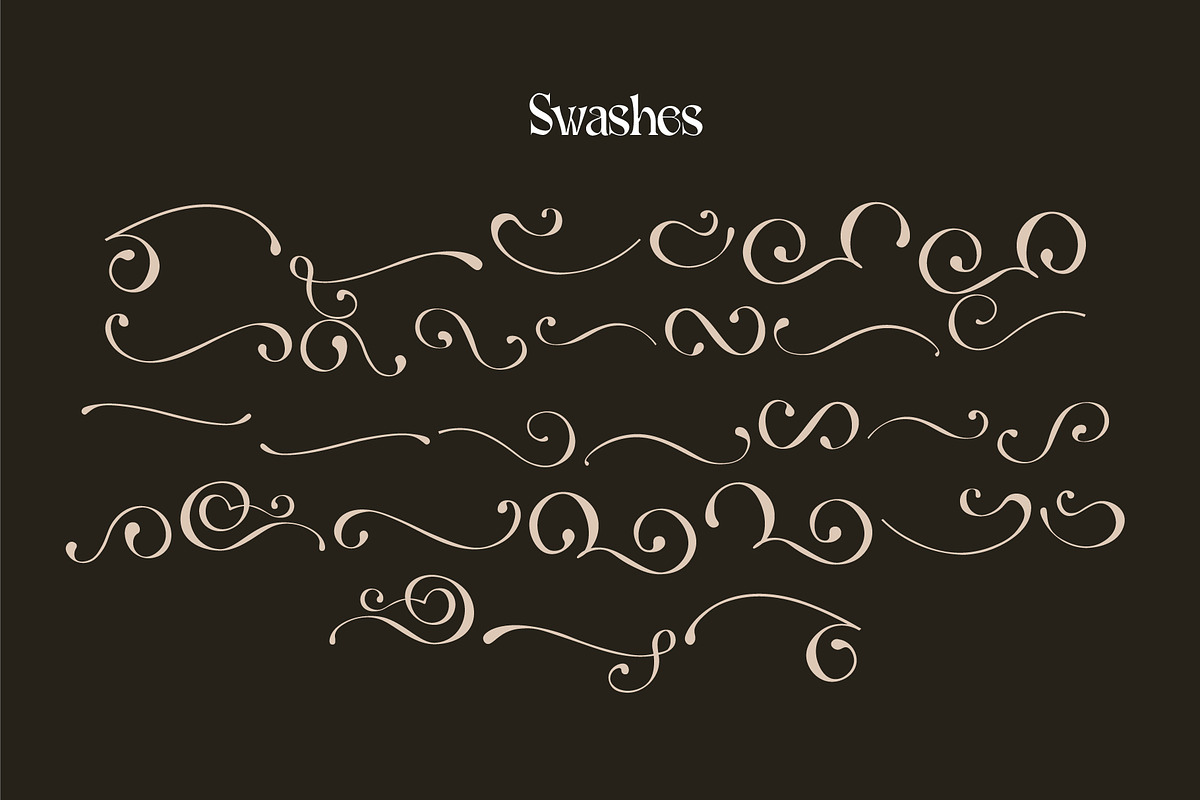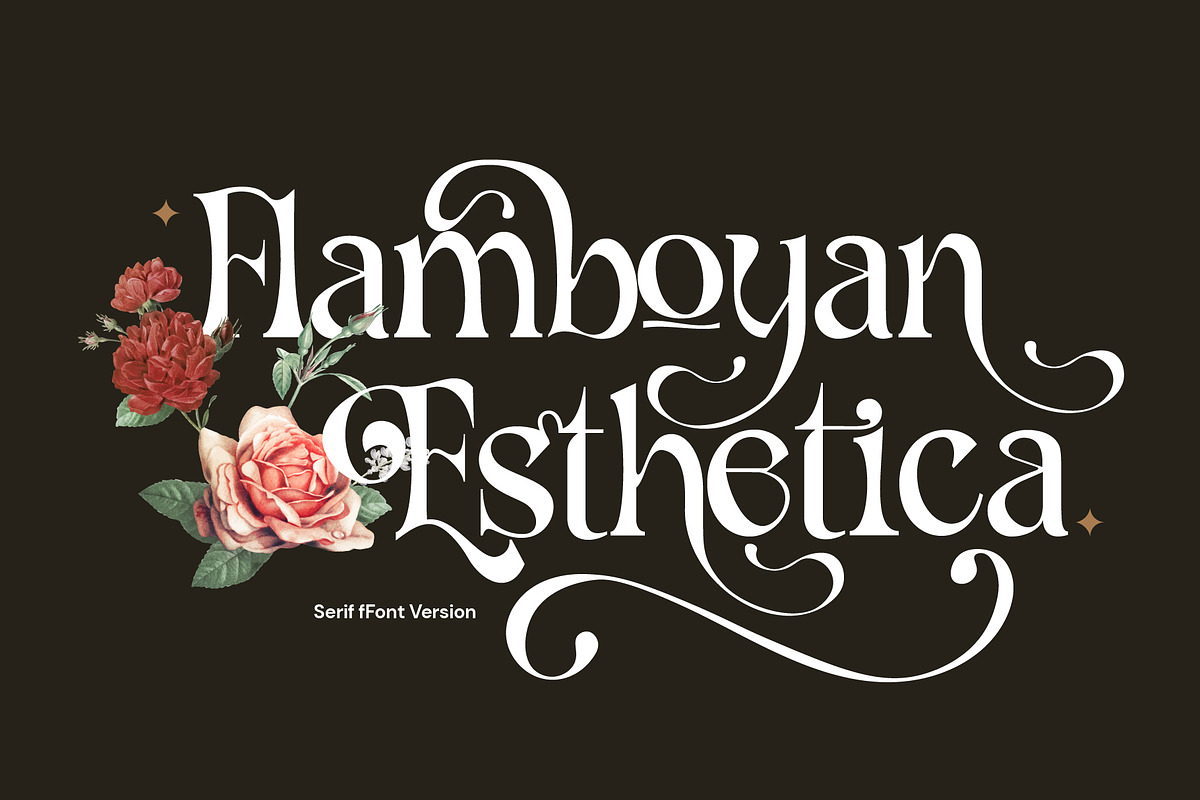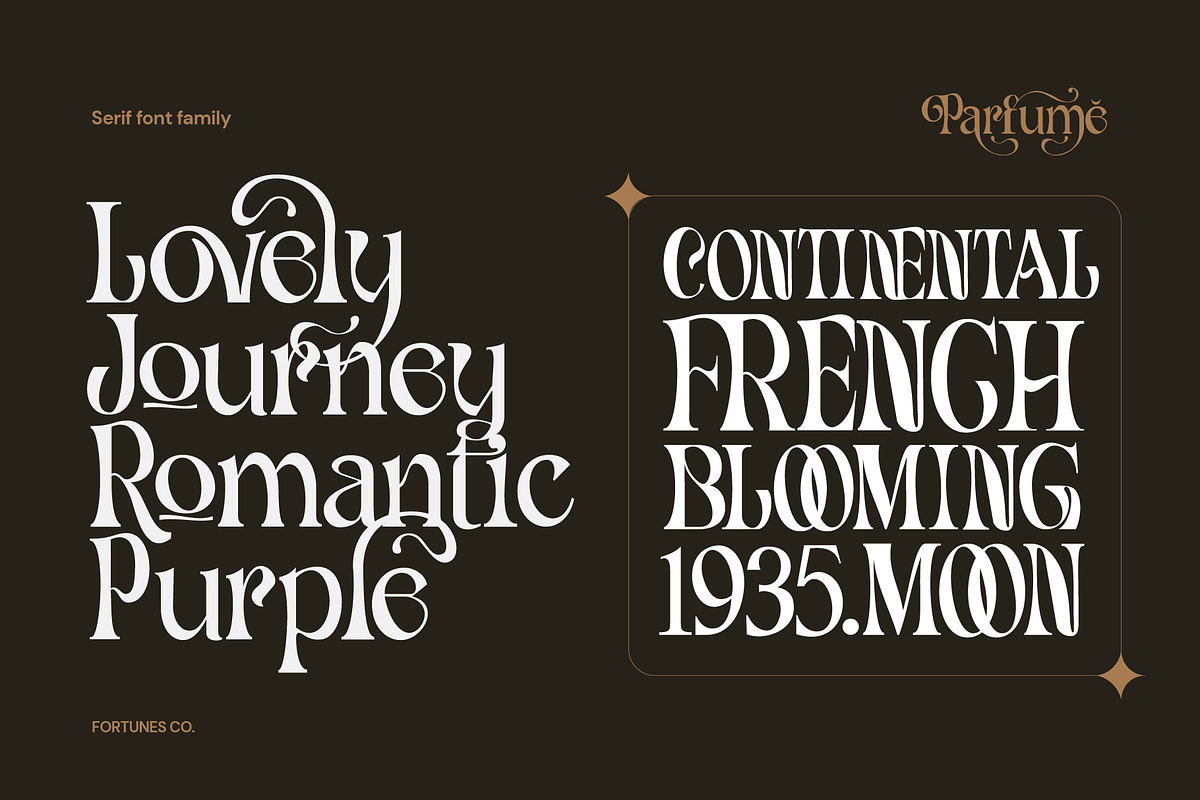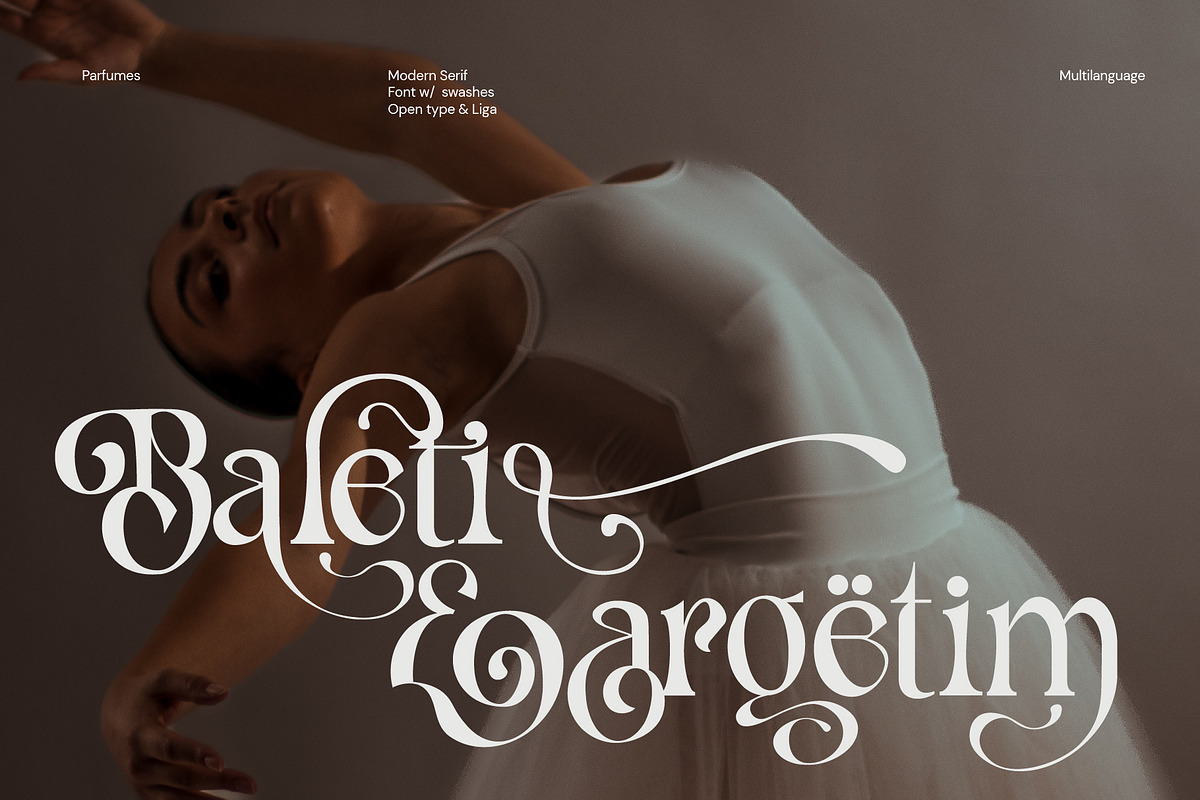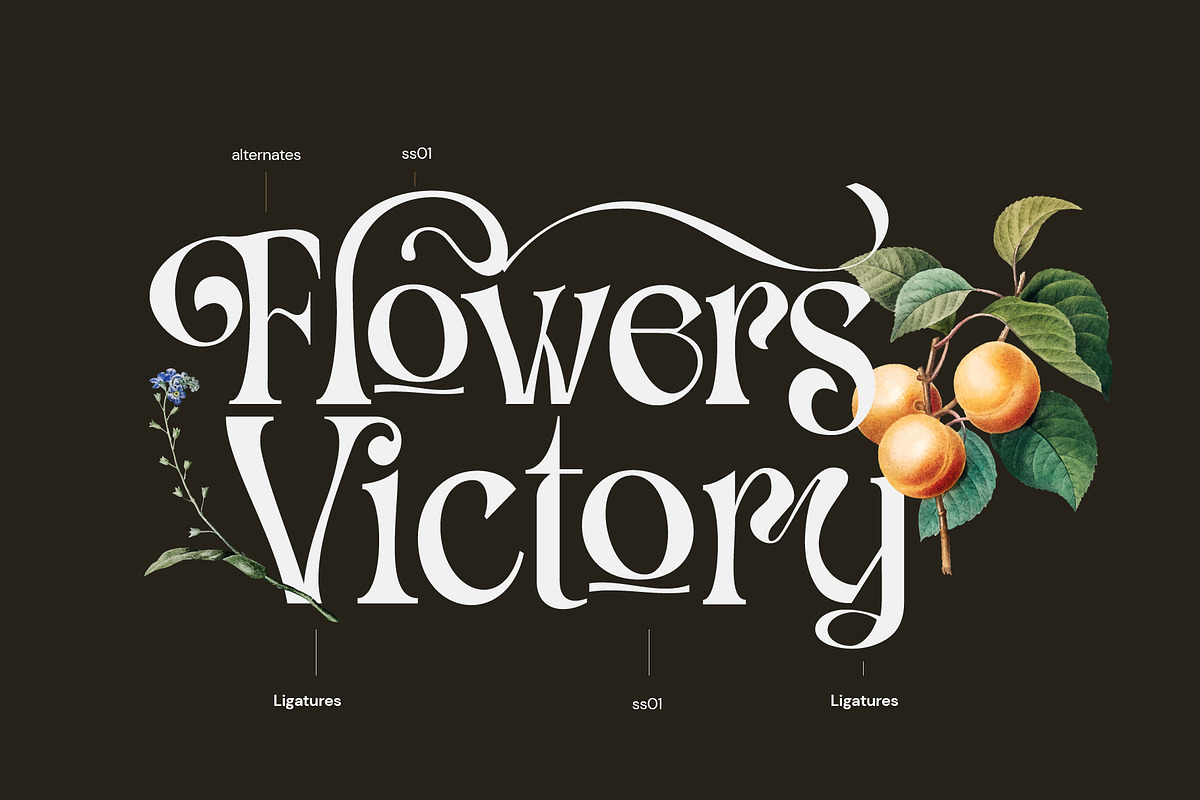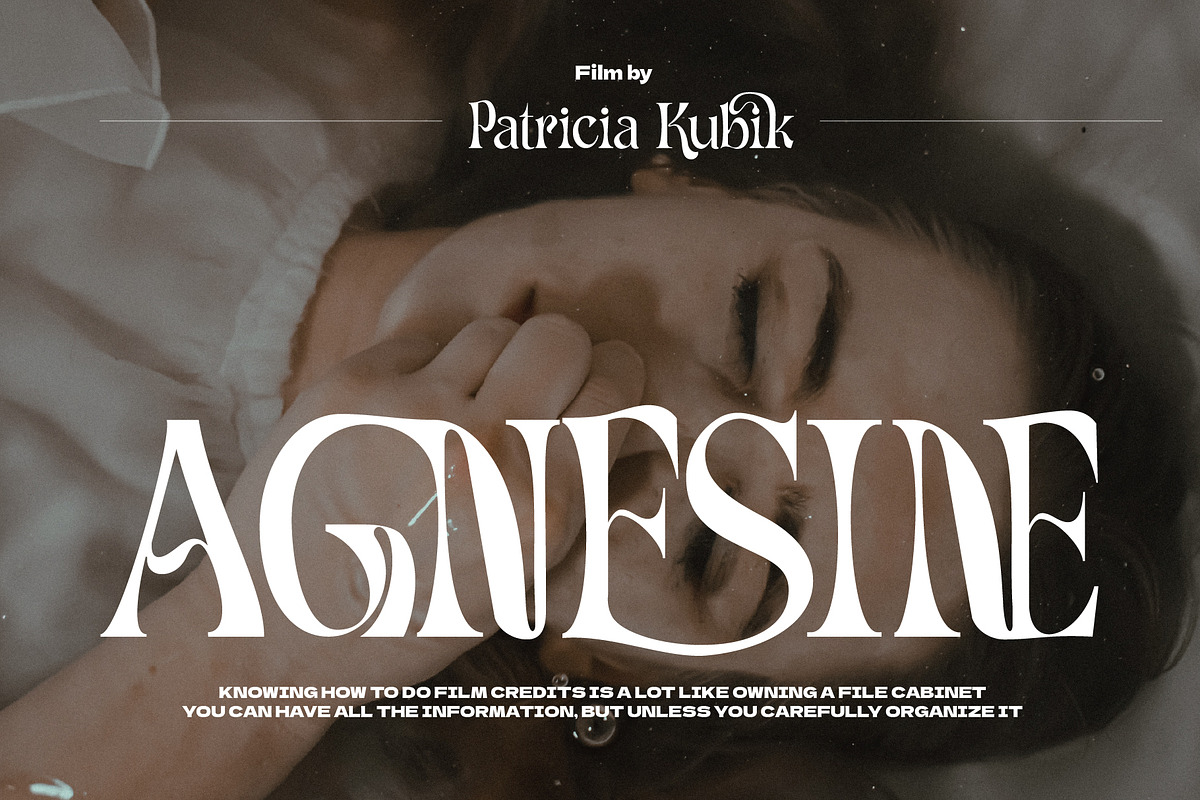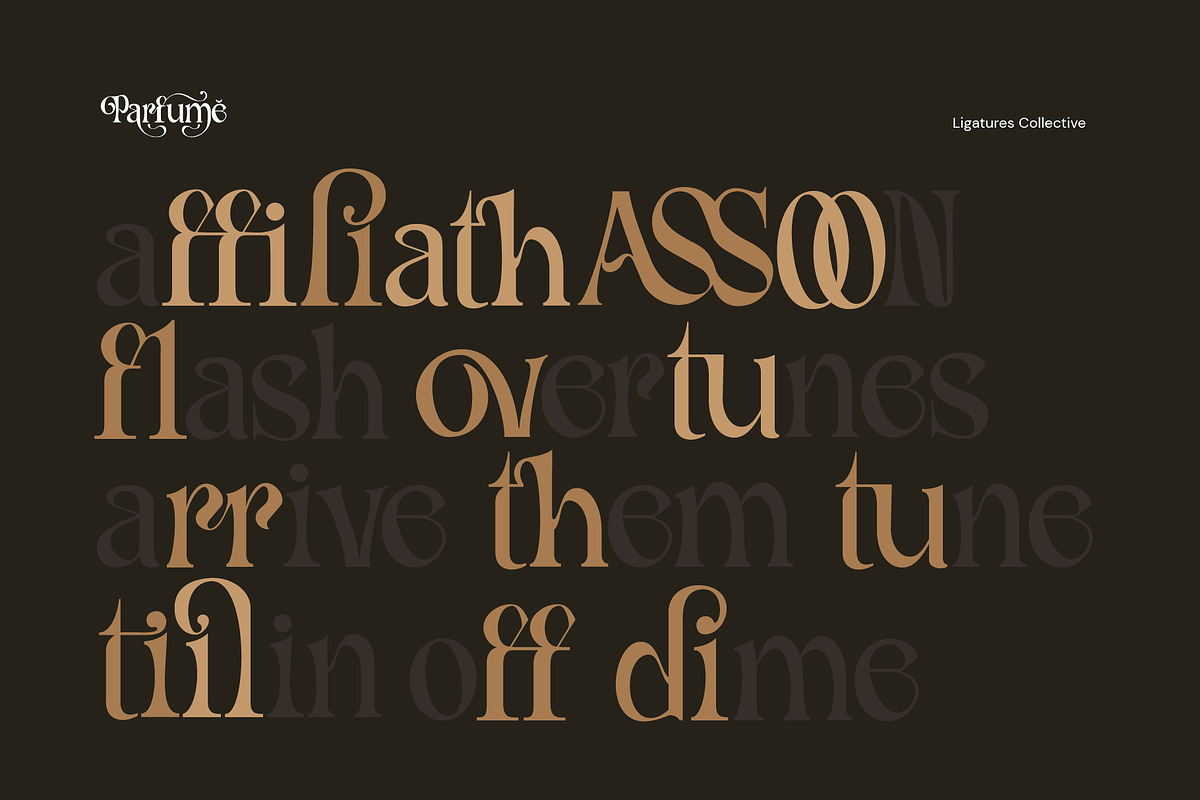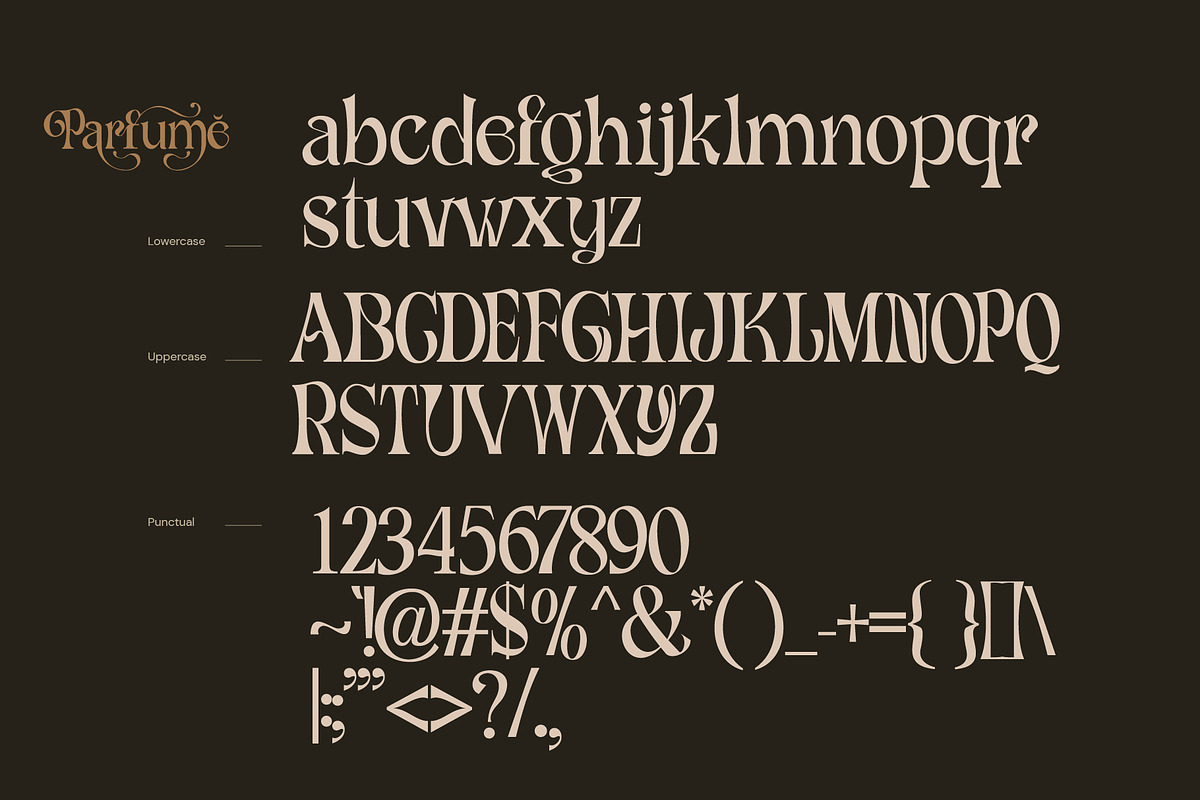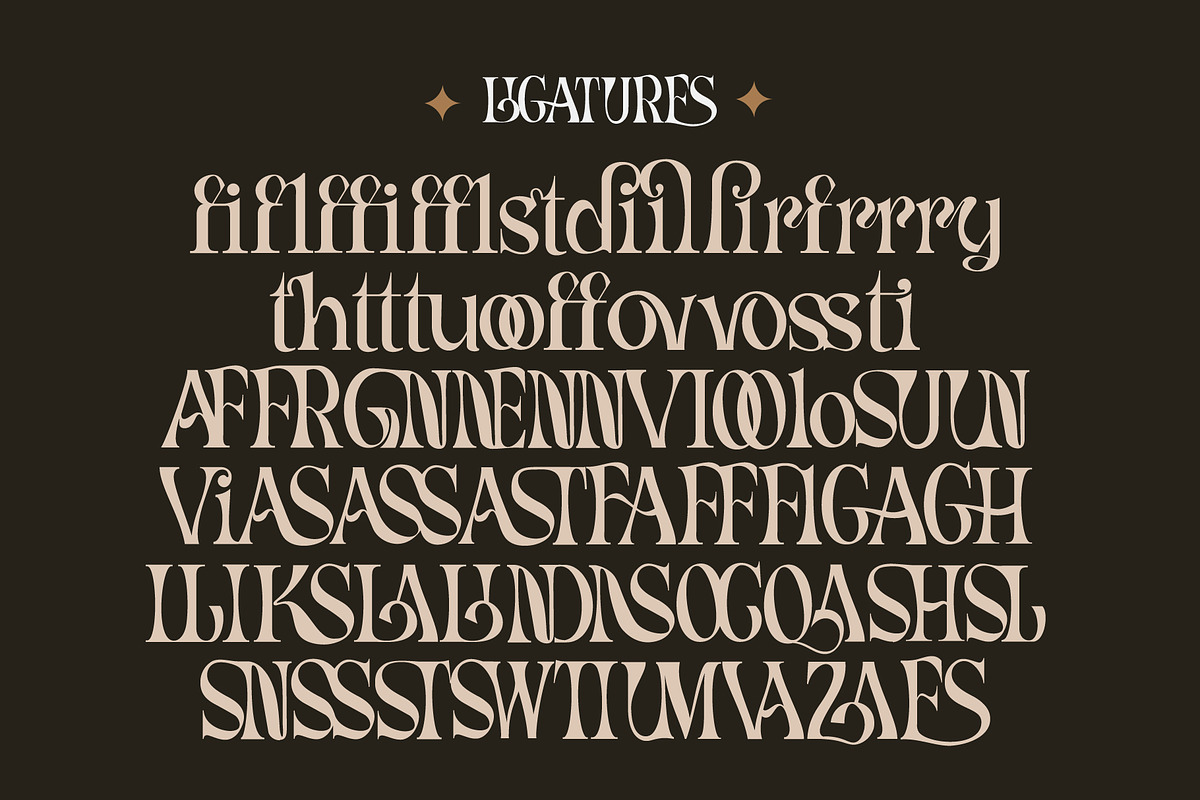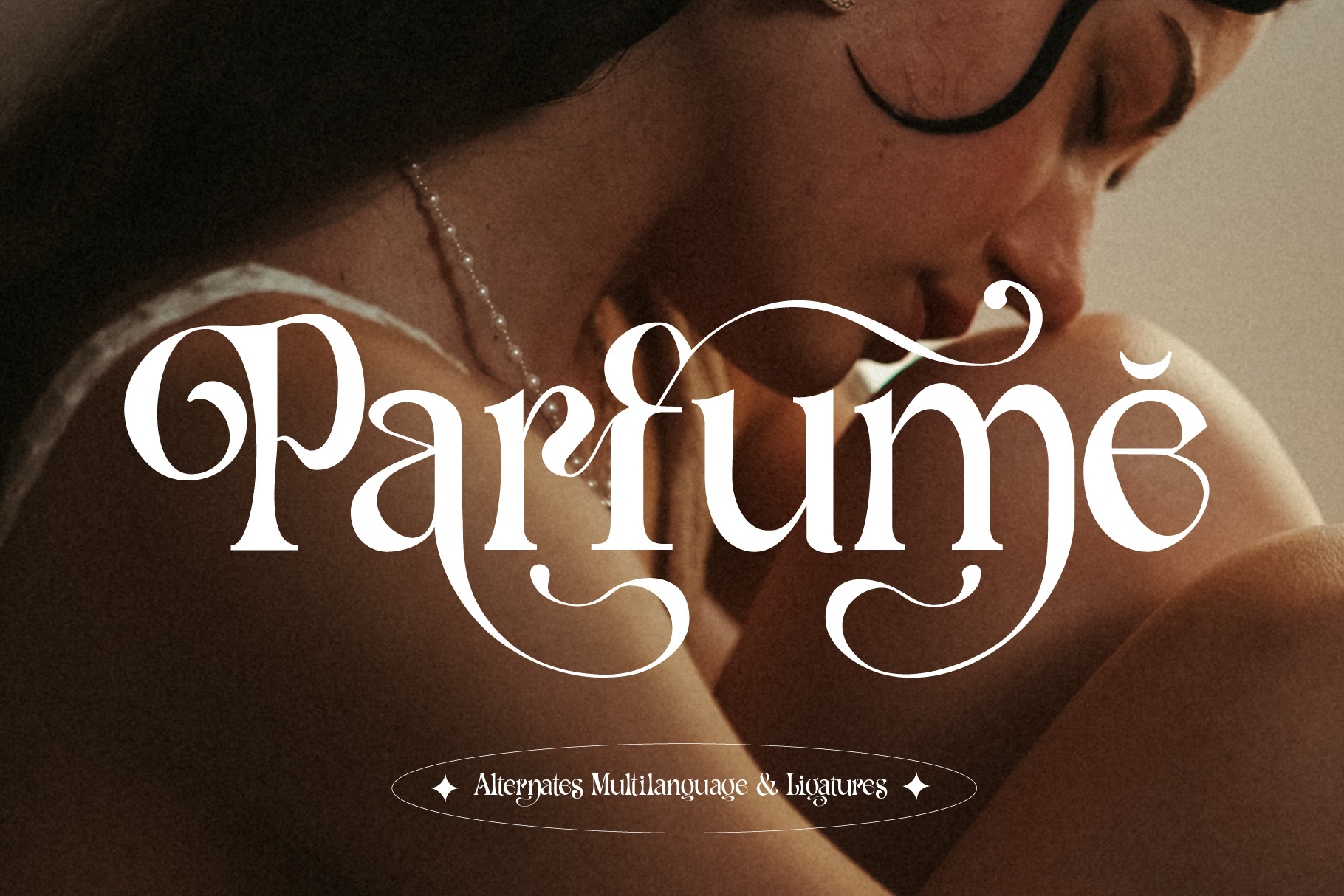
Fd Parfume Serif Font + Swashes
Modern serif fonts are a contemporary twist on traditional serif typefaces, striking a perfect balance between classic elegance and modern aesthetics. Combining clean lines with refined serifs, they exude a sophisticated and professional vibe, making them a popular choice for digital and print media alike. Their versatility enables them to work well in both body text and headlines, ensuring readability and visual appeal across various platforms.
Modern serifs often showcase a higher contrast between thick and thin strokes, elevating legibility while preserving their distinctive character. Embraced by designers for their timeless charm with a contemporary edge, modern serif fonts continue to shape the visual language of our digital era.
- Font+ Swashes
- Standard Ligatures & Discretionary Ligatures
- Fractions, Superscript & Subscript
- Multiple Latin Pro Languages Supported
- Ligatures : fi fl ffi ffl st di il li rf rr ry th tt tu oo ff ov ss ti AFFRGNNENNVIꝎloSUUN ViASASSASTFAFFFlGAGH ILIKSLALINDNSOCQASHSL SNSSSTSWTIUMVAZAES